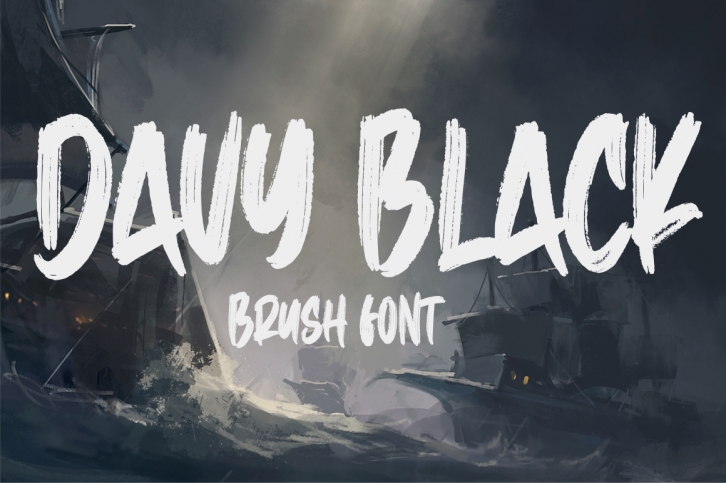
Davy Black a brush display font. It features ligatures and characters that will take your projects to the next level!
Use it to create outstanding wedding designs, blogs, online shops, social media posts, or use it for printing on clothing, accessories, bags, pins, logos, business cards, watermarks, and many others.
This font will make any product look more attractive!